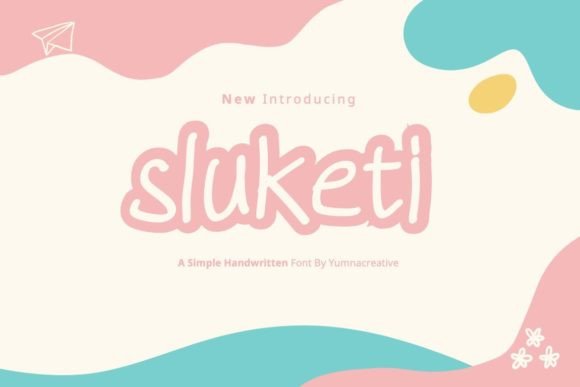
Journey into the whimsical world of Sluketi Font - a charming and unconventional handwritten font that breathes life into your creative endeavors. Designed by the talented Yumnacreative, Sluketi is a script font that captivates with its playful and curvy letterforms, inviting you to explore a world of imagination and expression.
Unleash your inner artist and let Sluketi's enchanting strokes dance across your designs, transforming ordinary words into captivating works of art. Say goodbye to mundane typography and embrace the extraordinary with Sluketi's captivating personality.
Picture this: a social media post that radiates with joy and exuberance, thanks to Sluketi's infectious energy. Engage your audience with captivating graphics that showcase your brand's unique spirit, leaving an unforgettable impression that keeps them coming back for more.
Dive into the realm of greeting cards and let Sluketi's whimsical charm take center stage. Create heartfelt messages that resonate with loved ones, evoking emotions and creating lasting memories. Whether it's a birthday wish or a simple hello, Sluketi adds a touch of magic that makes every card extraordinary.
With Sluketi, you're not just downloading a font; you're embarking on a creative journey where imagination reigns supreme. Experience the joy of crafting designs that speak to the heart, leaving an enduring mark on your audience.
Embrace Sluketi today and unlock a world of endless possibilities. Let your creativity soar and watch as your designs transform into captivating masterpieces that leave a lasting impression. Step into the realm of Sluketi and let your imagination run wild!